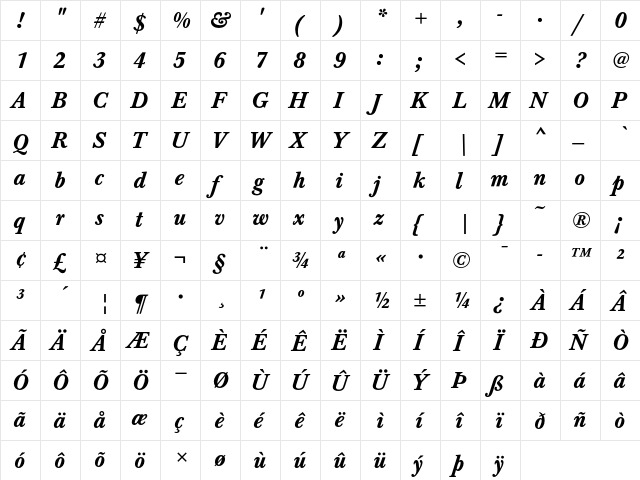
Baskerville T Medium Italic
Design Context for Baskerville T Typeface
Baskerville T offers clean, dependable letterforms without strong stylistic allegiance, making it a practical choice for designers who need flexibility. The dynamic lean of this cut emphasises speed and emphasis in any layout.
Pro Tip: Try Baskerville T for annotation and caption copy alongside an upright companion — the contrast in angle creates a dynamic but ordered typographic system.